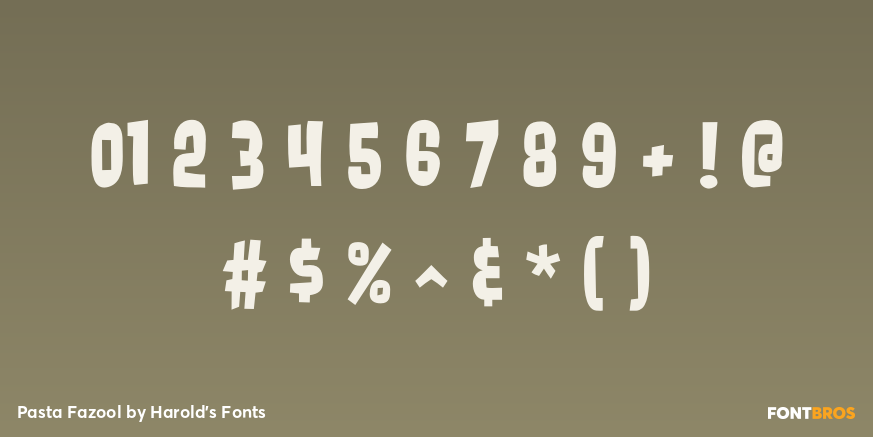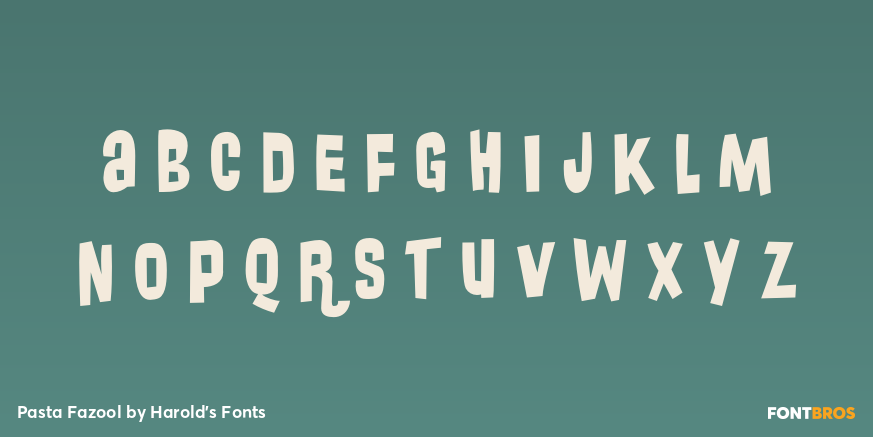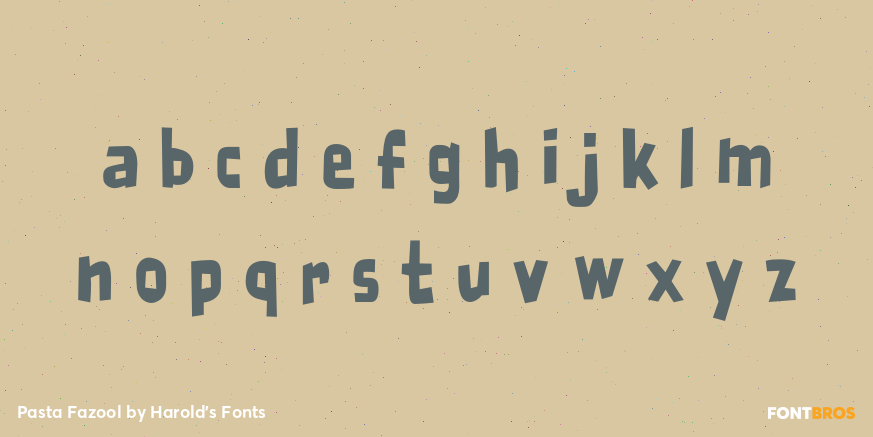
Pasta Fazool
Font Family by Harold's Fonts
PASTA FAZOOL is a fun, bold, and bouncy font. With lots of alternate characters, PASTA FAZOOL works well in all caps, all lowercase, or mixed. There are two versions of the font; PASTA FAZOOL EXTRA has even more letters that fit in and around the others. These fonts were inspired by the hand-lettered titles of the 1966 Italian film, "The Christmas that Almost Wasn't," with an animated title sequence by Emanuele Luzzati.